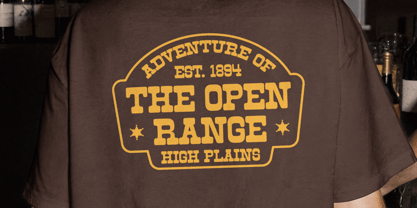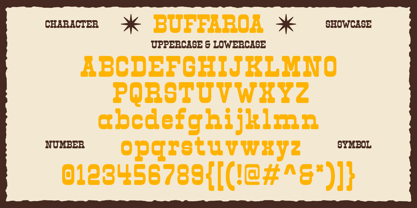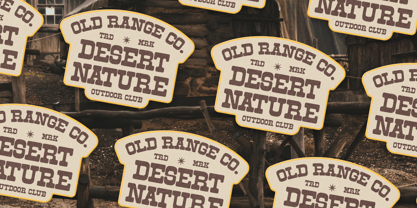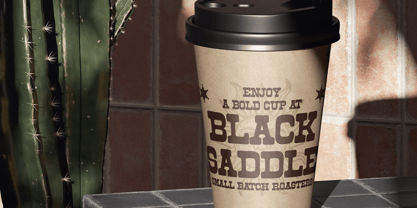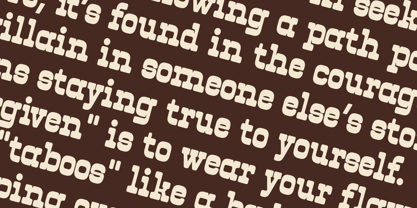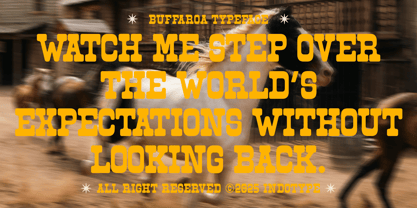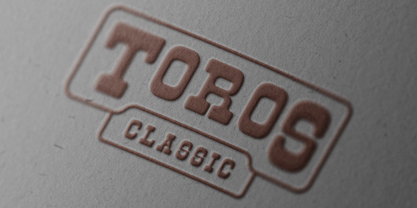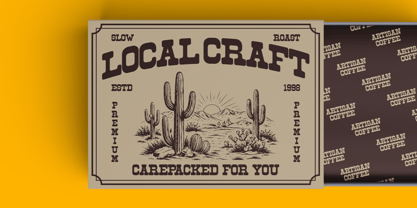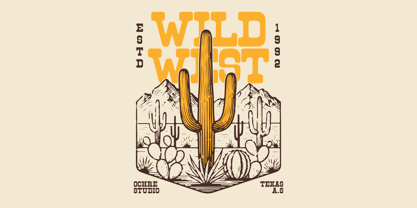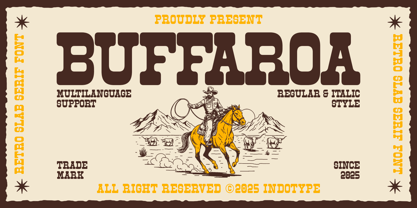
IT Buffaroa
por Indotype
La familia tipográfica IT Buffaroa fue diseñada por Dede Kurniawan y publicada por Indotype. IT Buffaroa contiene 2 estilos y opciones de paquete familiar. Más información sobre esta familia
Buffaroa is a sturdy and characterful retro slab serif typeface that channels the dependable, industrial spirit of 19th-century typography with a clean, contemporary refinement. Featuring solid, block-like serifs and hearty letterforms, it delivers a sense of durability, trust, and timeless confidence. This is a workhorse font with personality, built for impact and longevity. Designed for modern versatility, Buffaroa comes in both authoritative Regular and dynamic Italic styles, and includes comprehensive multilingual support, making it a truly global design asset. Perfect for brands that want to project strength and heritage—think breweries, artisan goods, editorial headlines, and branding for robust products—Buffaroa ensures your message stands firm and clear, with a touch of classic charm. • Ideal for: Craft Brewery Branding, Artisan Product Packaging, Editorial Headlines, Branding for Durability, Retro-Inspired Logos, Publishing. • Classification: Slab Serif, Retro, Display, Transitional. • Attributes: Sturdy, Trustworthy, Robust, Classic, Authoritative, Timeless, Dependable.